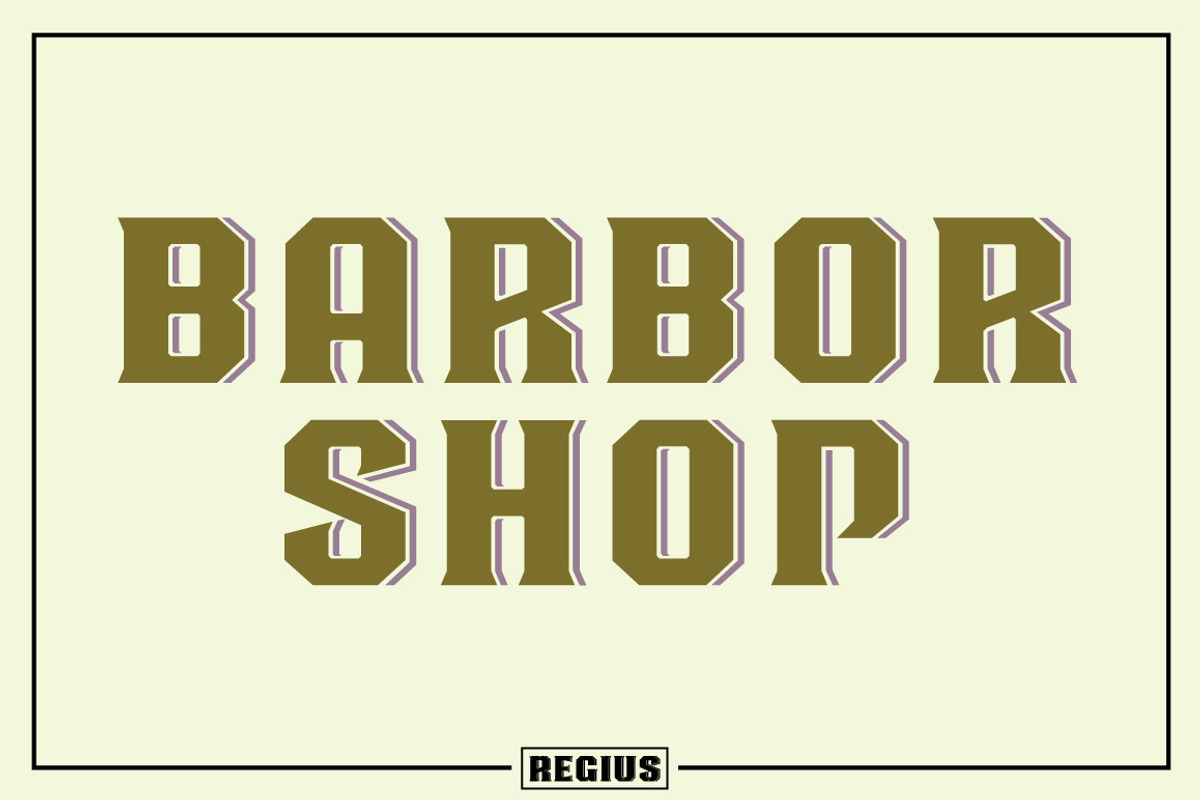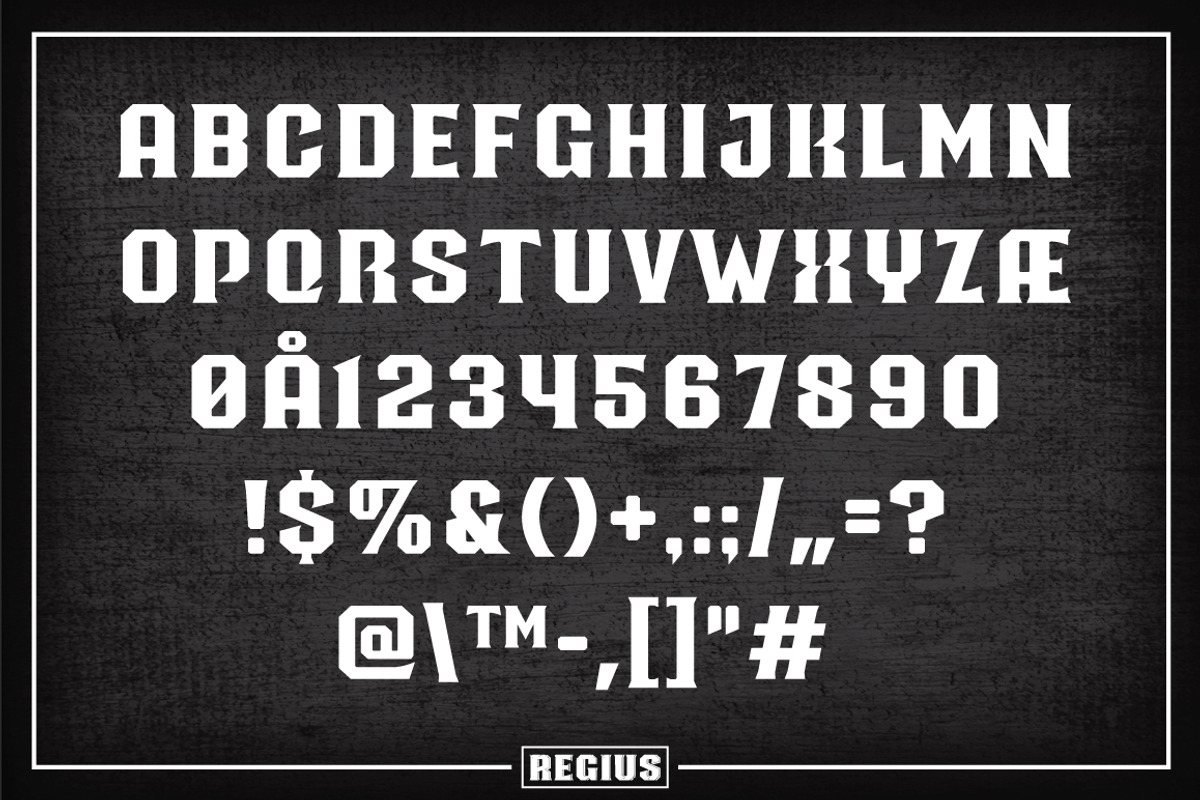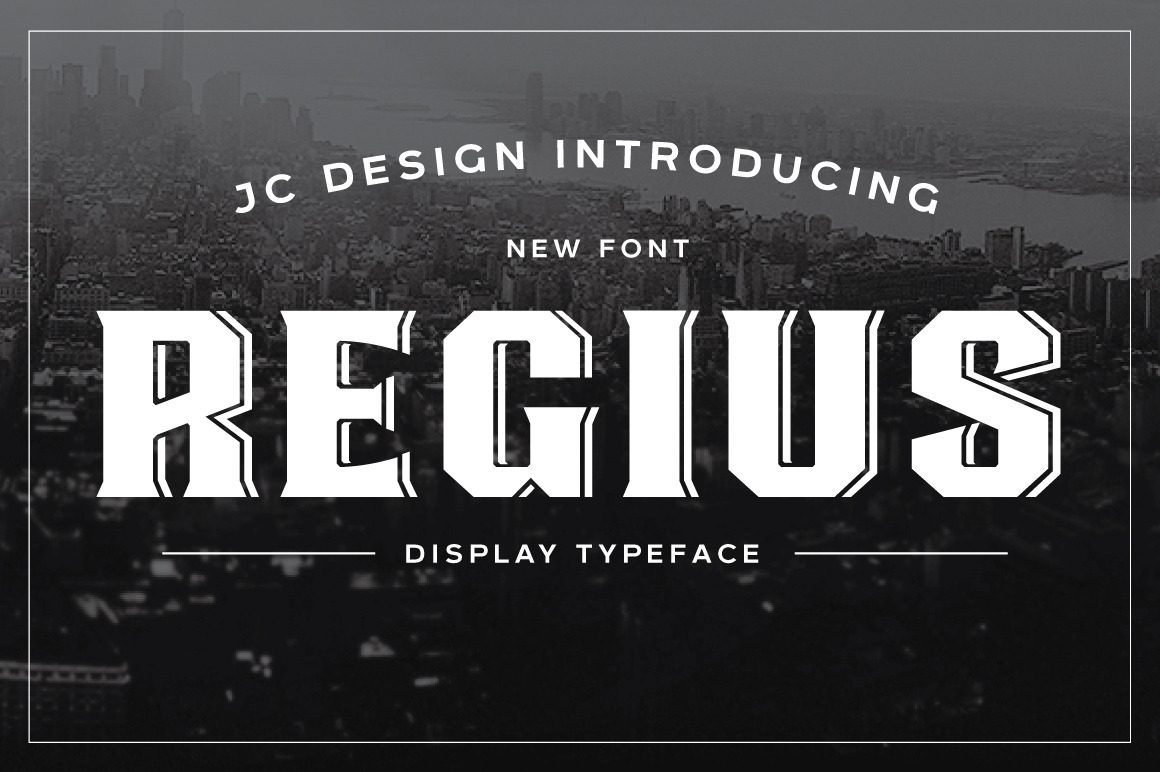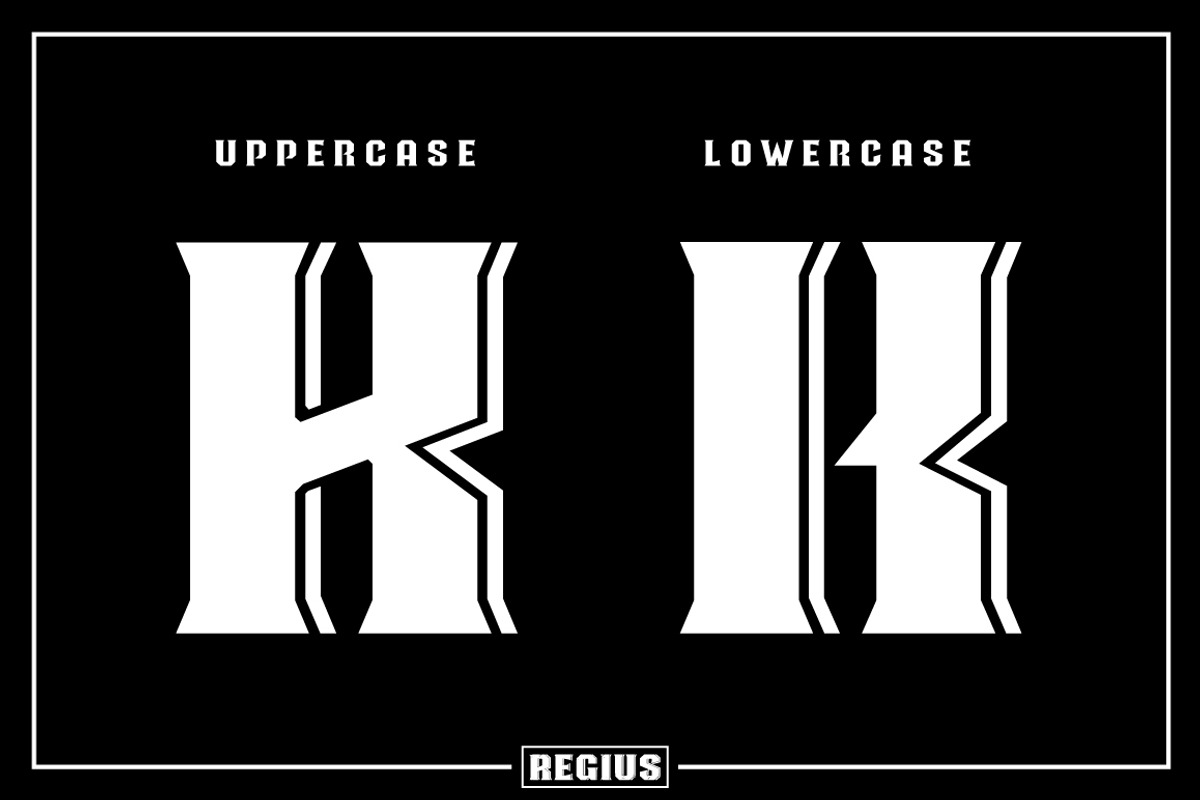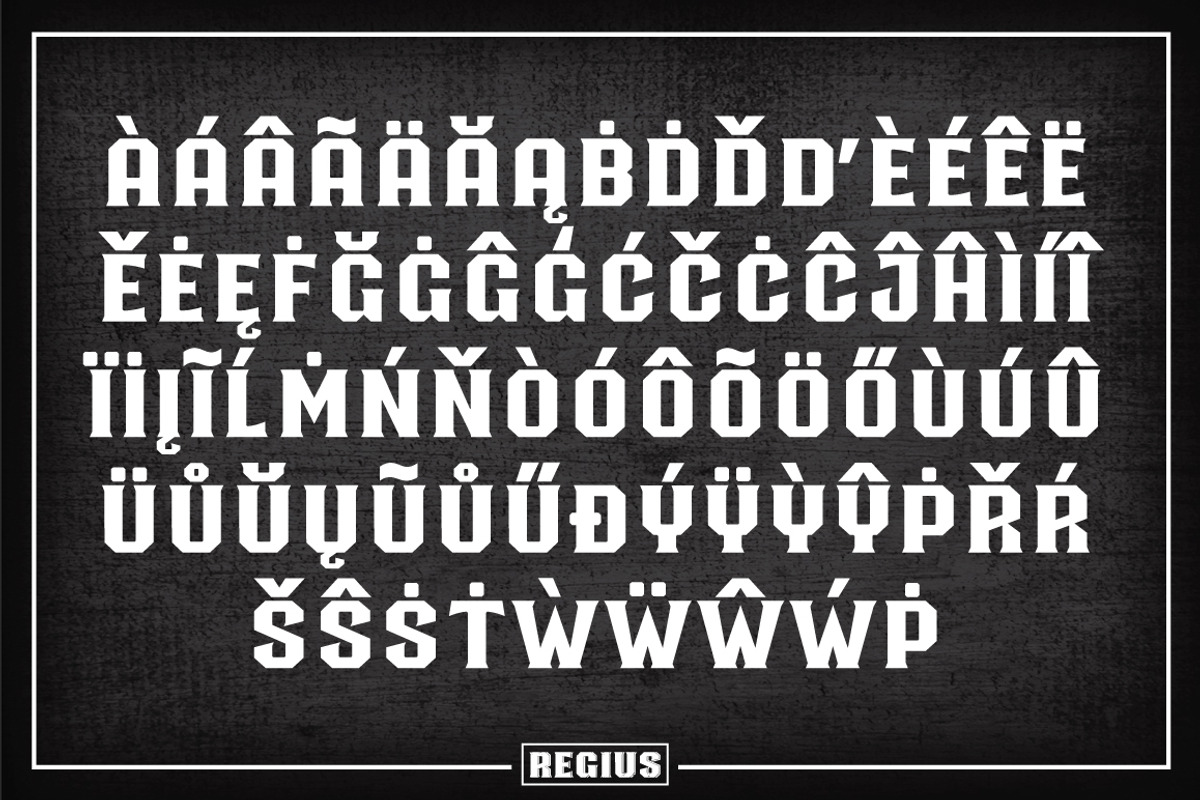
Regius Typeface
Regius was originally created as a corporate typeface for etiket packaging-design. It takes its inspiration from the old english pub signs. This retro font boasts simple shapes and reduced ornamental structures, yet still yielding an overall art deco -influenced look and feel.